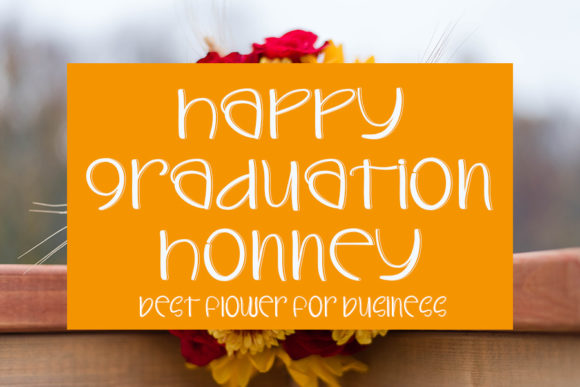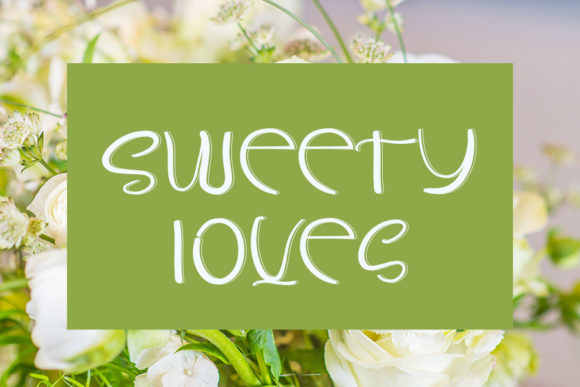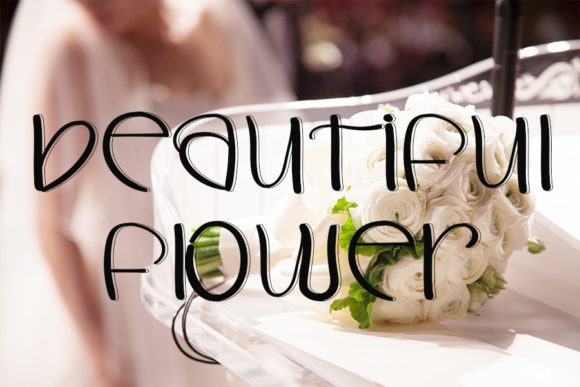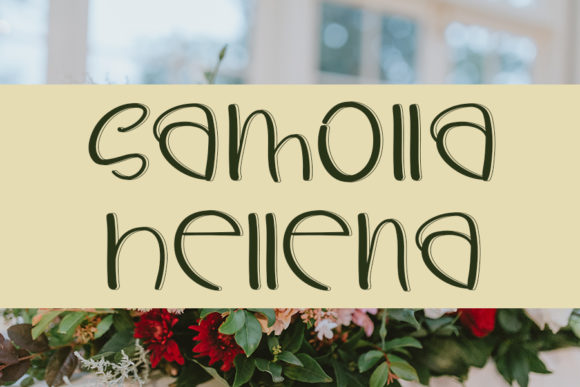
The Aloha Rose Font: A Stylish Handwritten Favorite
I’ll never forget the design moment when I fell in love with the Aloha Rose font. I was working on a project for a client’s wedding invitation, and I was struggling to find the perfect font that would capture the essence of their special day. The client wanted something classy, yet modern and fresh. After hours of searching, I stumbled upon Aloha Rose, and it was love at first sight! 💕
In this article, I’ll share my honest review of the Aloha Rose font, provide a practical guide on how to use it on various platforms, and explore similar fonts that you might enjoy.
The Good: What I Love About Aloha Rose ✨
- 💫 Classy calligraphic influences that add a touch of elegance to any project
- ✅ Contemporary and fresh feel that’s perfect for modern designs
- 🎉 Highly legible, even at small font sizes
- 👍 Versatile and suitable for a wide range of projects, from wedding invitations to branding and packaging
The Not-So-Good: Small Quirks and Limitations ⚠️
- 🤔 Some users might find the font a bit too ornate for very casual or minimalist designs
- ⚠️ Limited availability of certain OpenType features on older software or platforms
The Story Behind Aloha Rose: Designer Inspiration
Aloha Rose was designed by a talented typographer who wanted to create a font that would capture the essence of modern elegance. Inspired by traditional calligraphy and the beauty of handwritten scripts, the designer poured their heart and soul into creating a font that would be both classy and contemporary.
Q: What type of projects is Aloha Rose best suited for?
Aloha Rose is a versatile font that can be used for a wide range of projects, from wedding invitations and luxury branding to packaging and creative hobbies.
Q: Can I use Aloha Rose with other fonts in a single design?
Yes, Aloha Rose can be paired with other fonts to create a unique and visually appealing design. Experiment with different font combinations to find the perfect balance for your project.